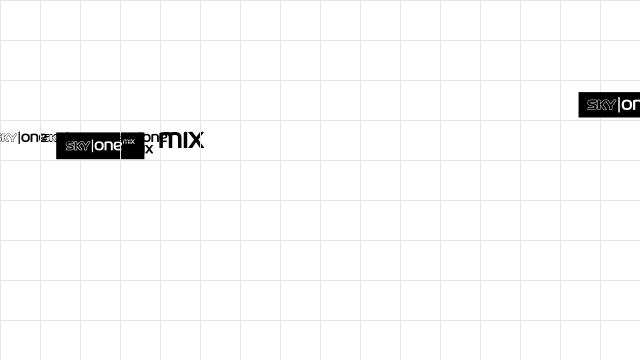
SKYfontone Regular
Design Context for SKYfontone Typeface
SKYfontone offers clean, dependable letterforms without strong stylistic allegiance, making it a practical choice for designers who need flexibility.